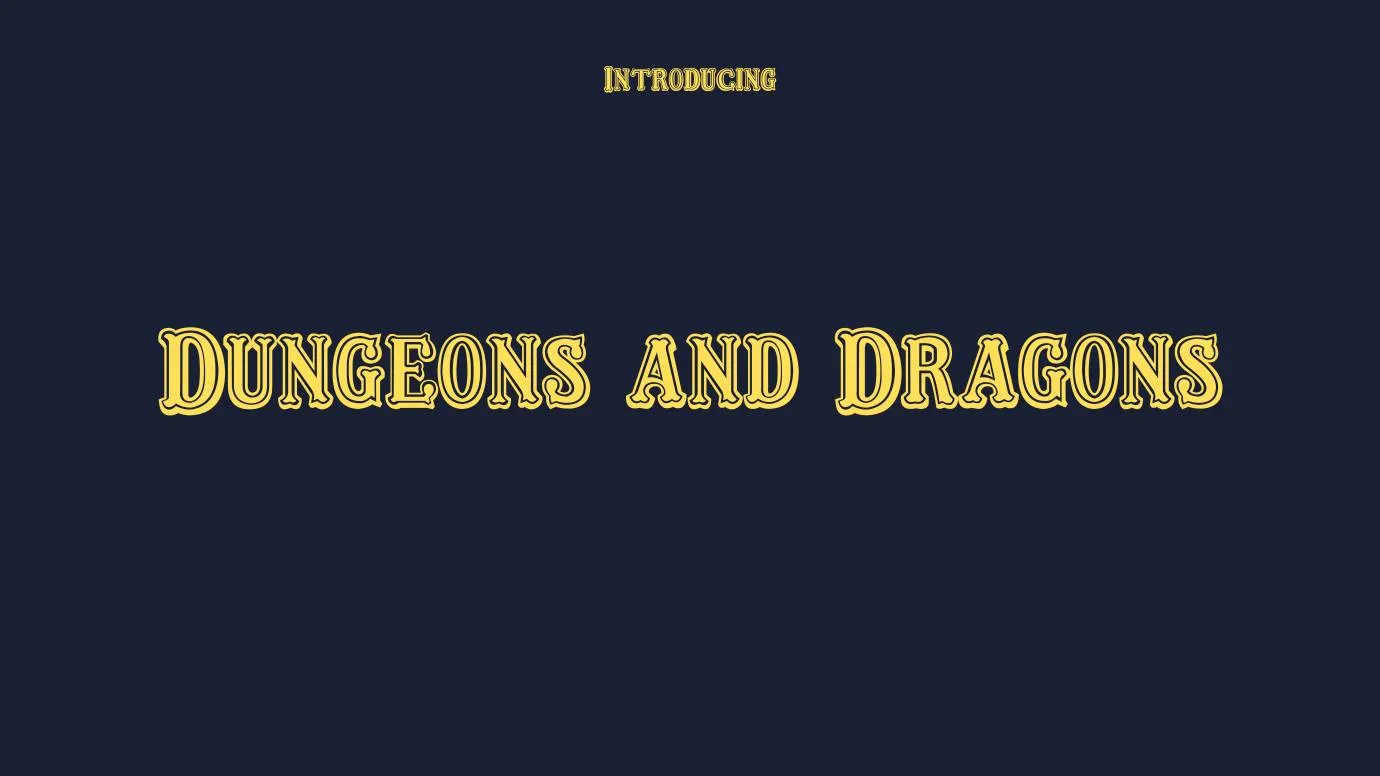
Dungeons And Dragons Font Family is a very modern and popular typeface named Dungeons And Dragons Font. This is a very popular logo font and was designed for the famous role-playing game.
| Name | Dungeons And Dragons Font |
| Type | Logo |
| Designer | Hermann Zapf |